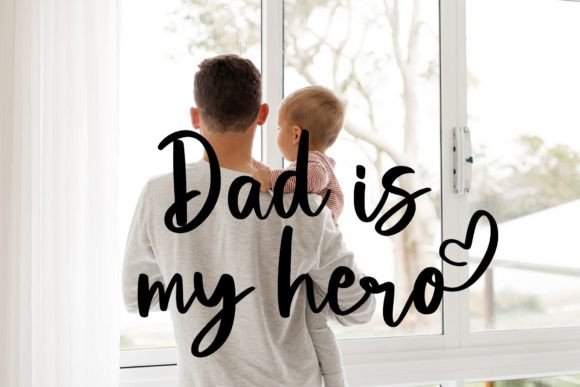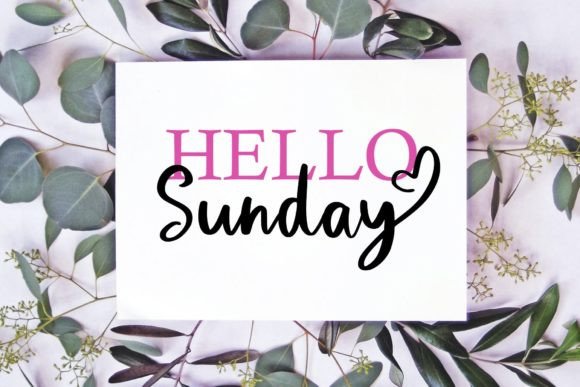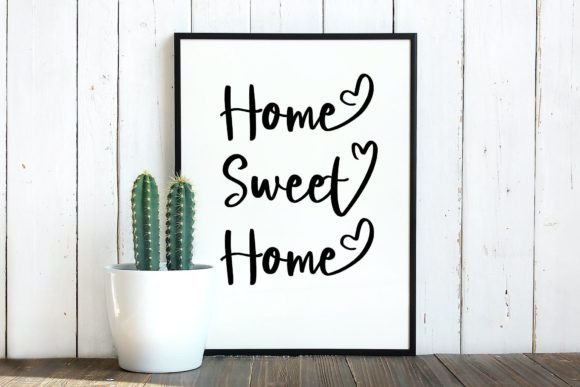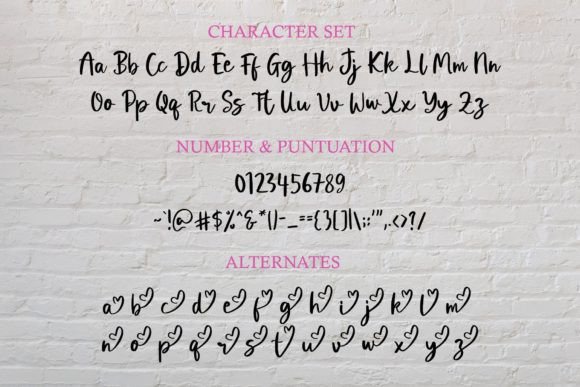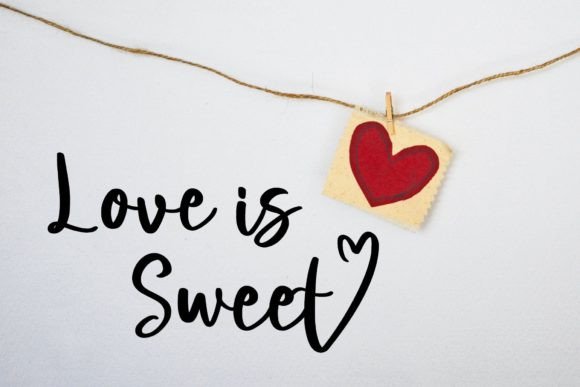
Introducing Abigail Font: Add a Touch of Whimsy to Your Designs
Are you tired of using the same old fonts in your designs? Look no further than Abigail Font, a lovely script font that is sure to add a touch of whimsy and charm to any project. With its charming, playful characters that seem to dance along the baseline, Abigail Font is the perfect choice for designers and crafters looking to make their ideas stand out.
What Makes Abigail Font So Special?
Abigail Font is a unique and eye-catching script font that features a range of charming and playful characters. Each letter is carefully crafted to create a sense of movement and energy, making it perfect for designs that need a touch of personality. Whether you’re working on a branding project, a craft tutorial, or a digital design, Abigail Font is sure to add a touch of magic to your work.
Key Features of Abigail Font
- Charming, playful characters: Each character in Abigail Font is carefully crafted to create a sense of movement and energy.
- PUA encoded: This font is PUA encoded, which means you can access all of the amazing glyphs and ligatures with ease.
- Versatile: This font can be used for a wide range of projects, from branding and advertising to crafting and digital design.
- Use it as a headline font: Abigail Font is perfect for headlines and titles, where its playful and charming characters can really shine.
- Add it to your branding: Use Abigail Font to add a touch of personality to your branding, including logos, business cards, and packaging.
- Experiment with different colors and textures: Abigail Font looks great in a range of colors and textures, so don’t be afraid to experiment and find the perfect combination for your design.
Why Designers and Crafters Love Abigail Font
Abigail Font has quickly become a favorite among designers and crafters, and it’s easy to see why. Here are just a few reasons why this font is so popular:
- Unique and eye-catching: Abigail Font is a truly unique and eye-catching font that is sure to make your designs stand out.
- Versatile: Abigail Font can be used for a wide range of projects, from branding and advertising to crafting and digital design.
- What is PUA encoding?: PUA encoding stands for Private Use Area encoding, which allows font creators to include additional characters and glyphs that are not part of the standard Unicode character set.